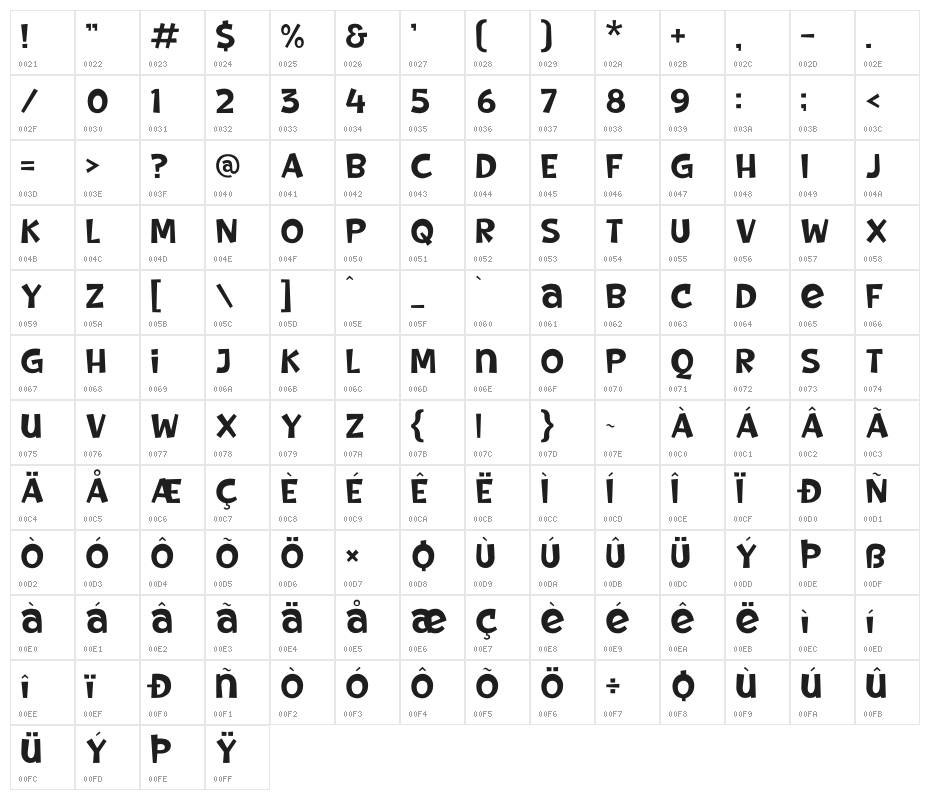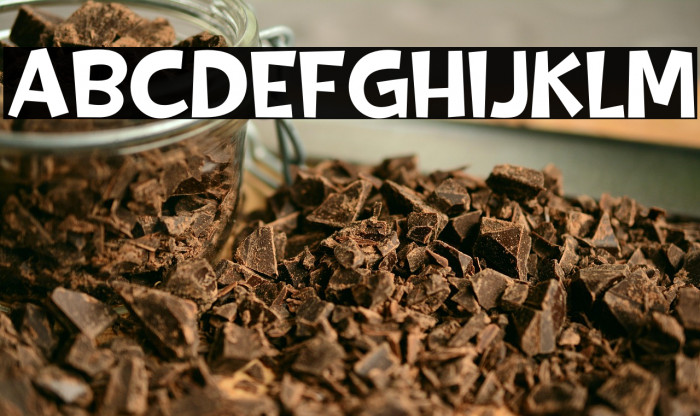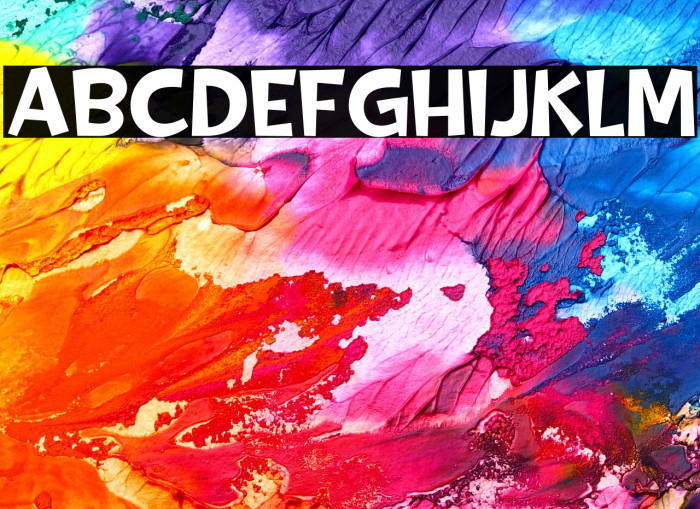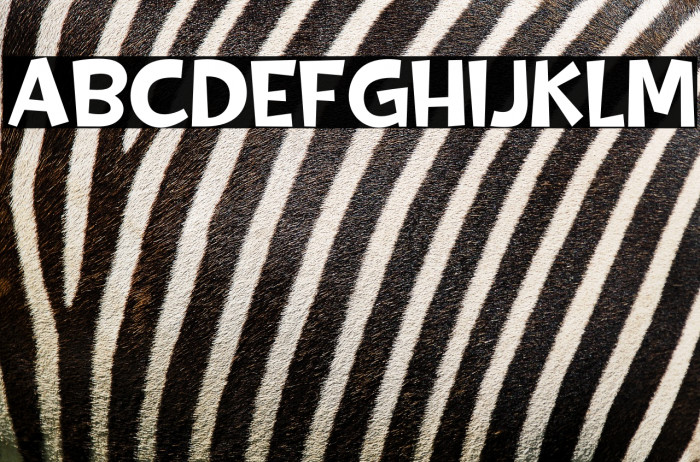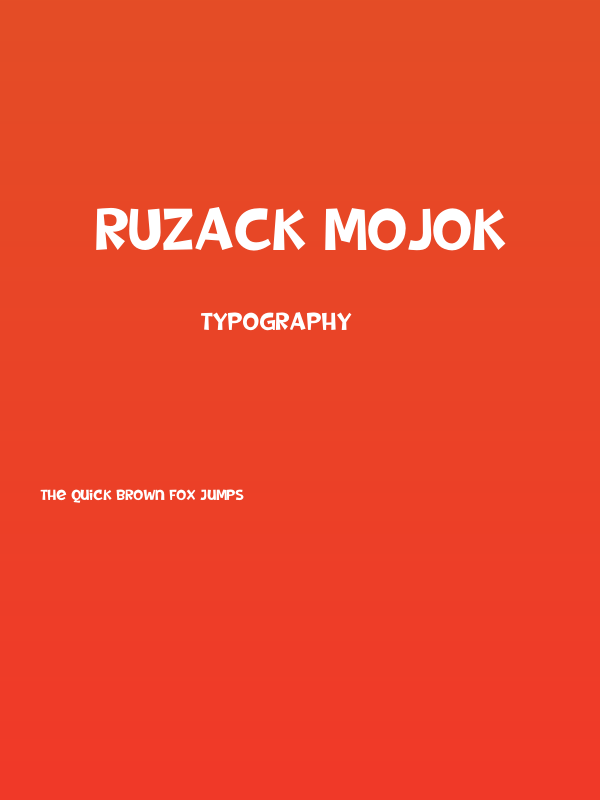
RUZACK MOJOK Font
RUZACK MOJOK Description
This font features a playful and bold design with a slightly irregular and hand-drawn appearance. The characters are thick and rounded, giving them a friendly and approachable feel. The uppercase and lowercase letters maintain a consistent style, with the lowercase letters being slightly smaller in size. The numbers are bold and clear, matching the overall aesthetic of the alphabet. Special characters are included, maintaining the same whimsical style. This font is well-suited for projects that require a fun and informal touch, such as children's books, playful branding, or casual invitations.
| Proposed Projects | Ideal for children's books, playful branding, casual invitations, and informal posters. |